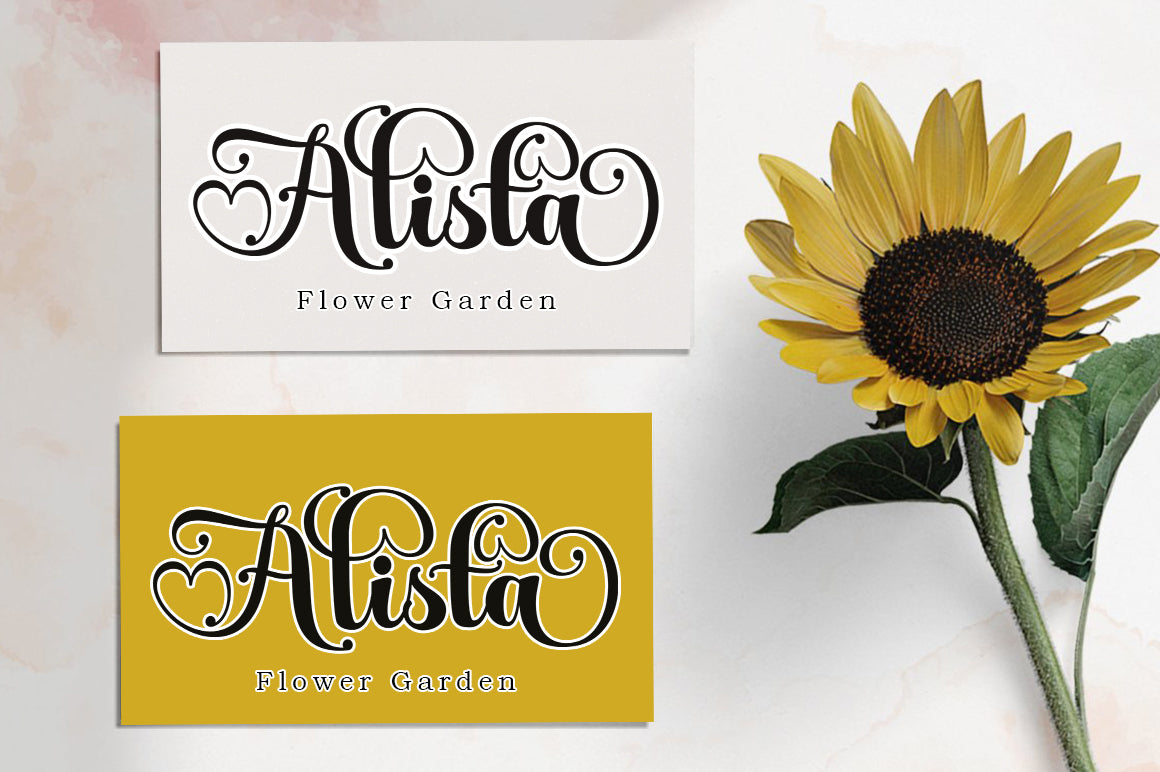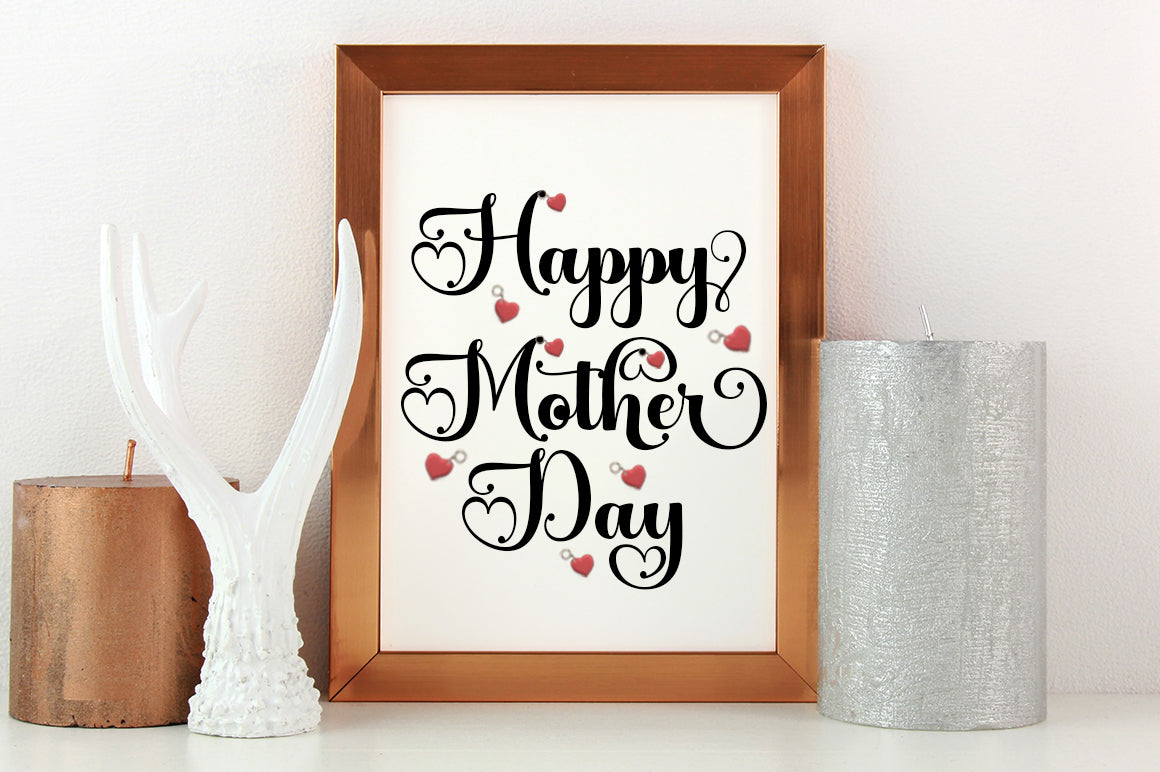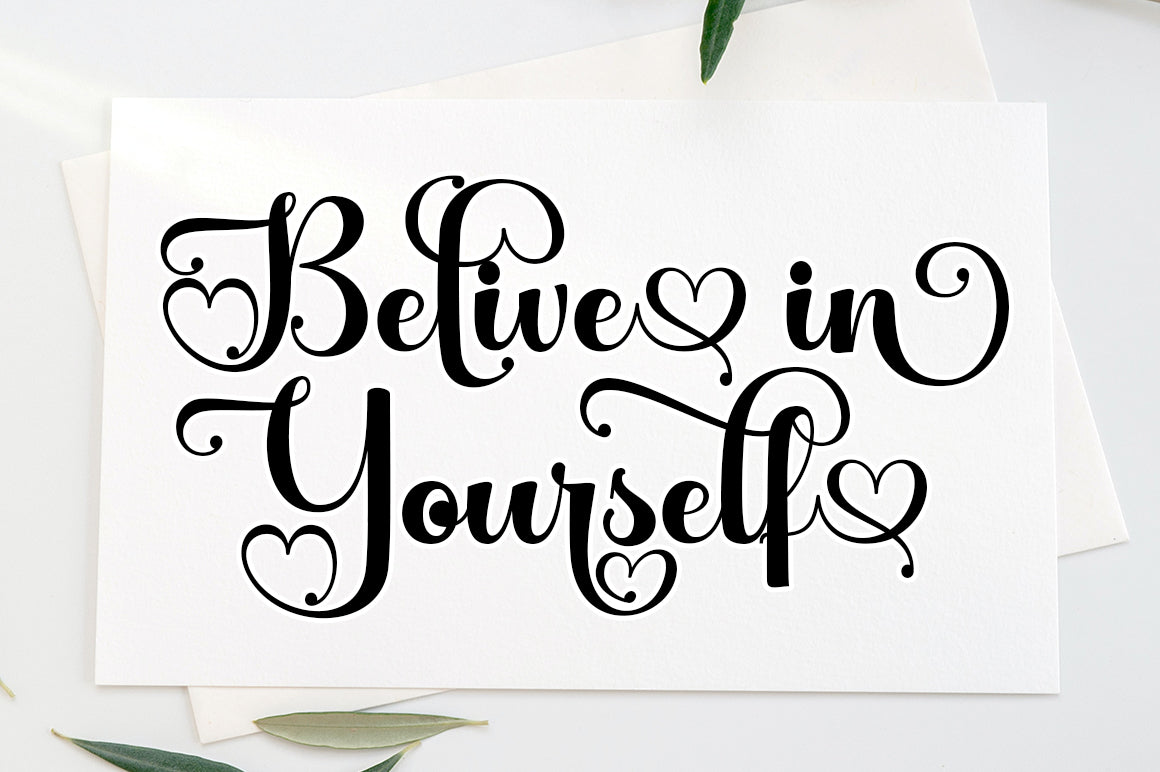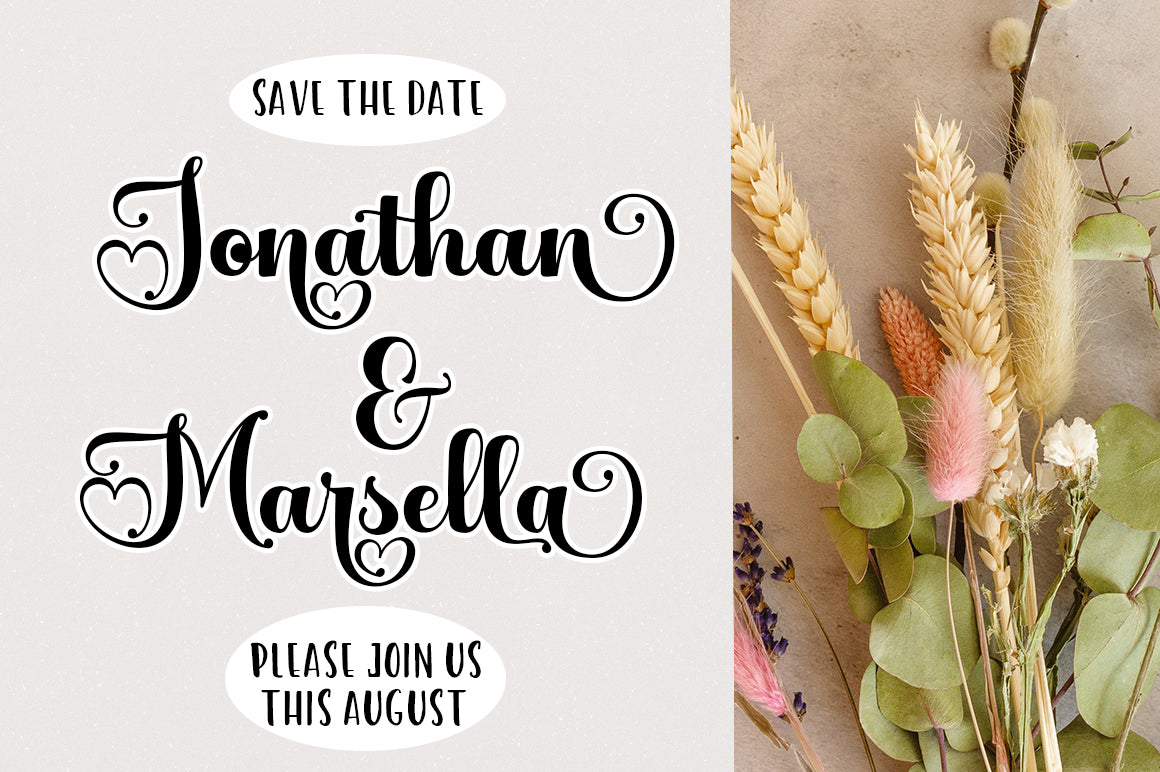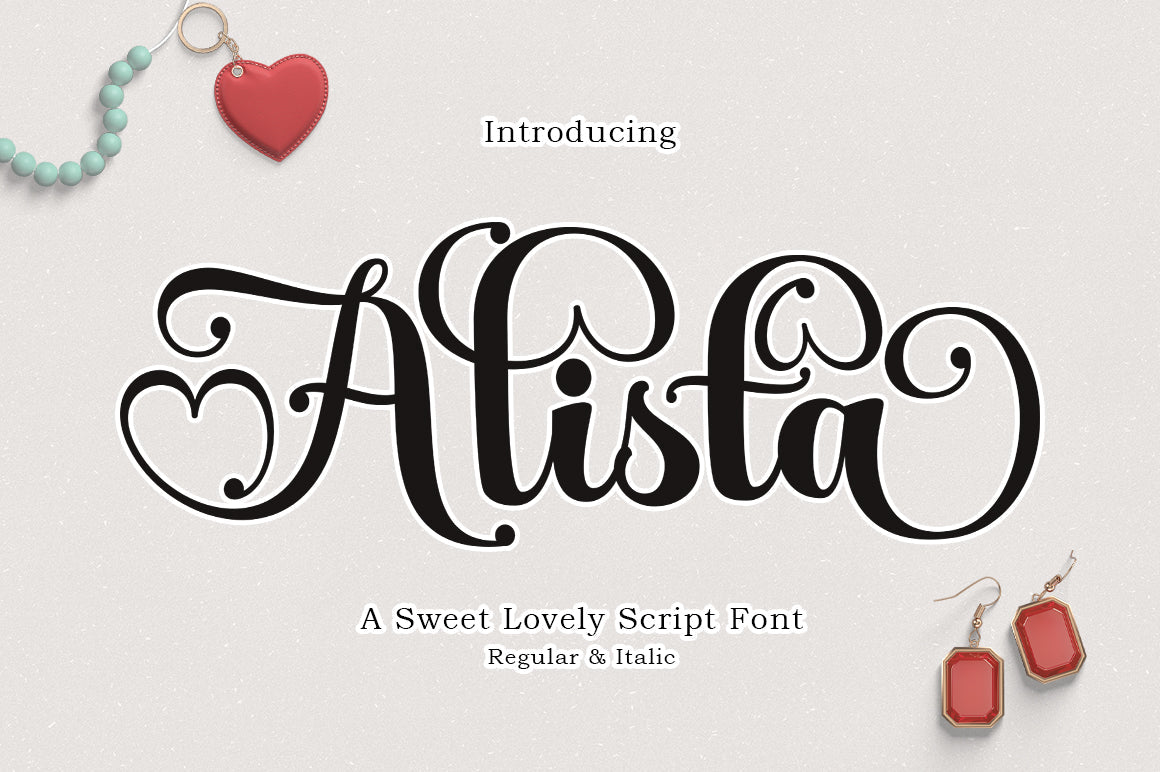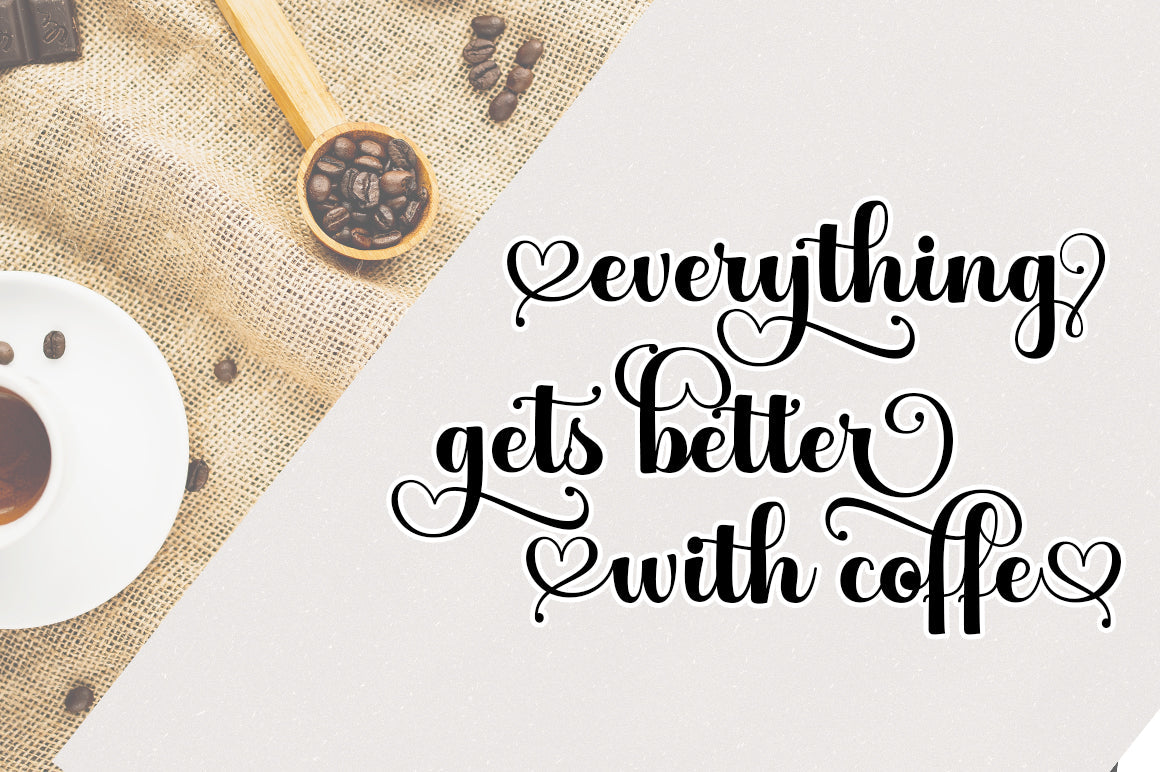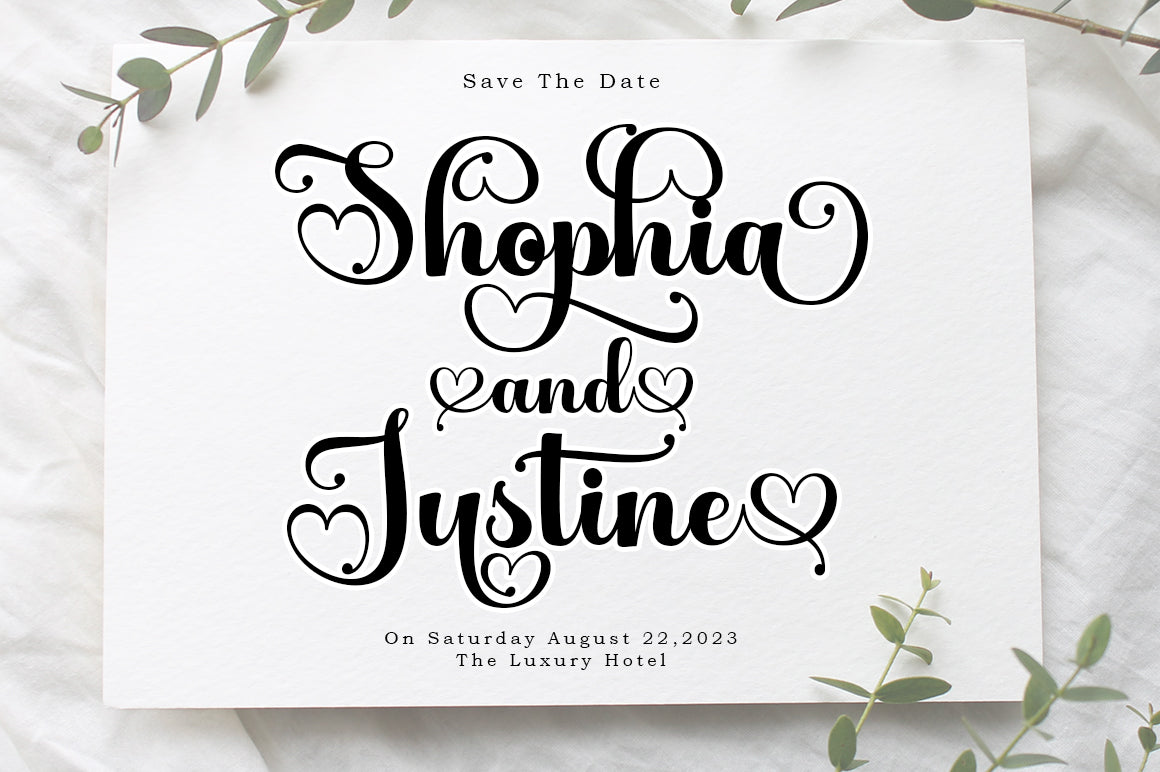
Alista Script
Preview Text Alista Script More information about this Font Hello everyone, I would like to introduce my newest font Hey Alista Script is a beautiful modern calligraphy typeface, I hope you will be interested in this font, if you want to use it for your work. This font can be used easily and simply because there are many features in it. contains a complete set of lowercase and uppercase letters, assorted punctuation, numbers, and multilingual support. font also contains multiple ligatures and many contain alternative Style Stylistic Sets such as a heart swash alternative You can see an example in the image above. What is included: . Alista Script Regular OTF . Alista Script Regular TTF Alista Script is very suitable for market designs being developed today, this font has a stylish, trendy, natural and soft font, with this font you can take advantage of opportunities every moment is a great way to highlight the celebration of the best of the party, because this font will be an advocate for the purposes such as wedding invitations, branding, parties, graduations, birthdays, gatherings, etc.